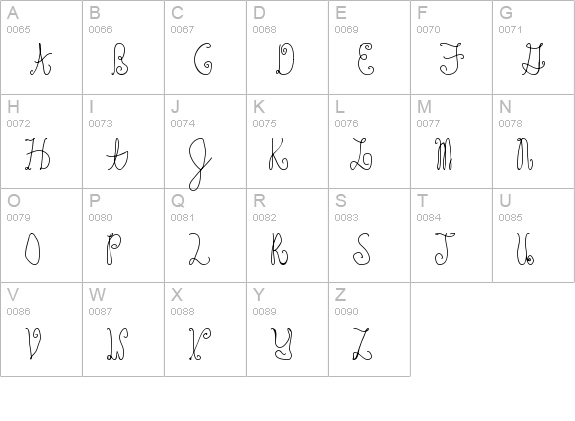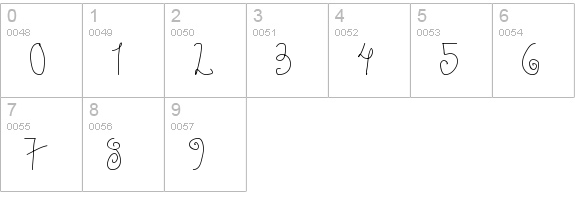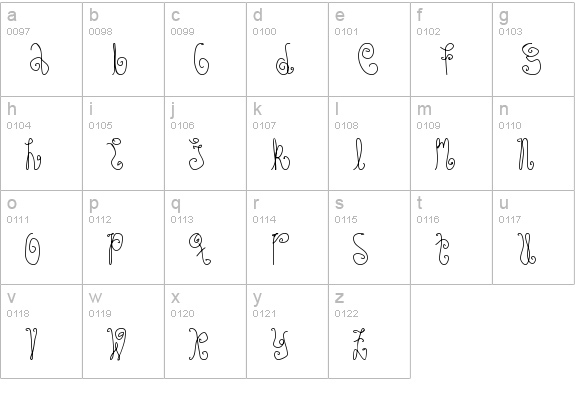
Schosszeit1 Font Details
Schosszeit1 font is a stunning display typeface that exudes elegance and sophistication. Its unique and intricate design will captivate and mesmerize any audience. The flowing curves and delicate serifs of each letter give this font a timeless appeal. With a wide range of characters and ligatures, Schosszeit1 is perfect for creating eye-catching headlines, logos, and branding materials. Its versatility allows it to be used in a variety of design projects, from wedding invitations to fashion magazines. What makes Schosszeit1 font even more appealing is the fact that it is free! Yes, you read that right. This exquisite font is freely available to download at FontsMarket.com. Whether you're a professional designer or a hobbyist, you can now access this extraordinary font without spending a dime. Downloading Schosszeit1 font is quick and easy. Simply visit FontsMarket.com, search for Schosszeit1, and click on the download button. It will instantly be added to your font library, ready to be used in your next creative endeavor. Don't miss out on the opportunity to enhance your designs with the beauty and elegance of Schosszeit1 font. Download it now for free at FontsMarket.com and let your creativity soar.